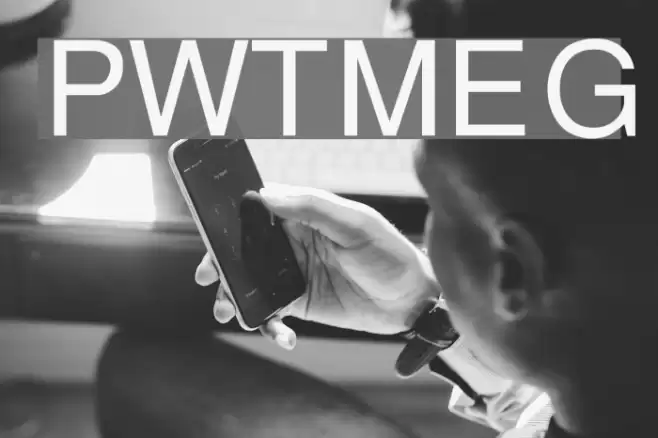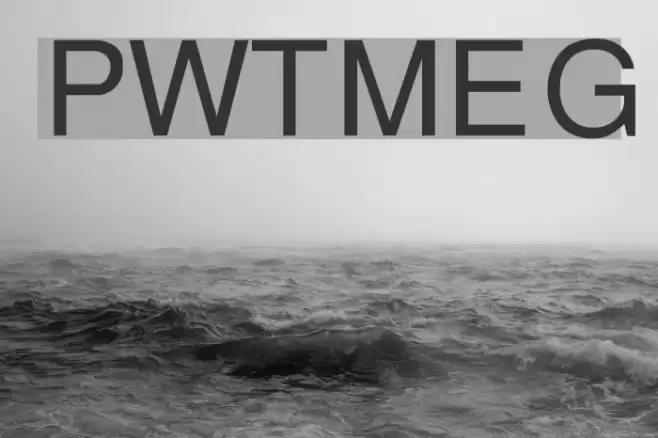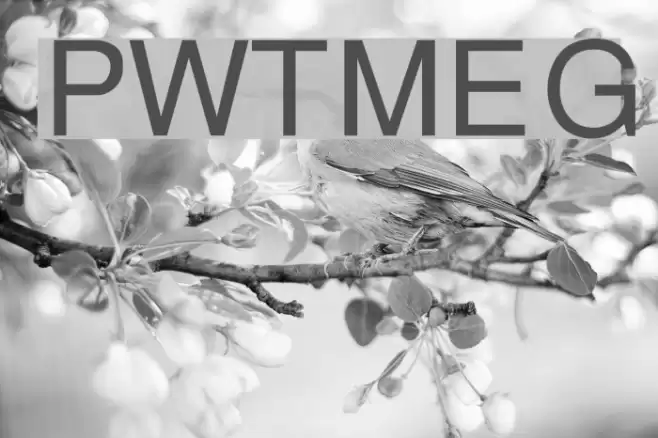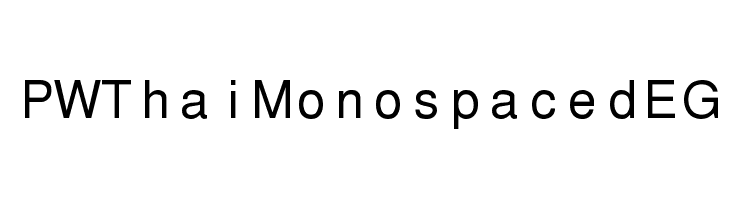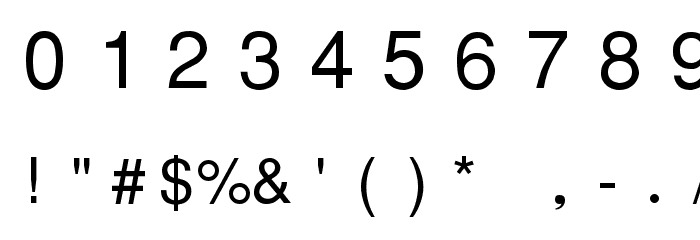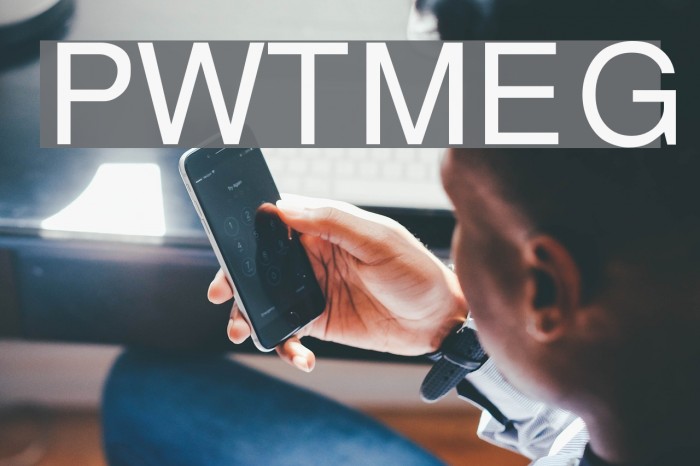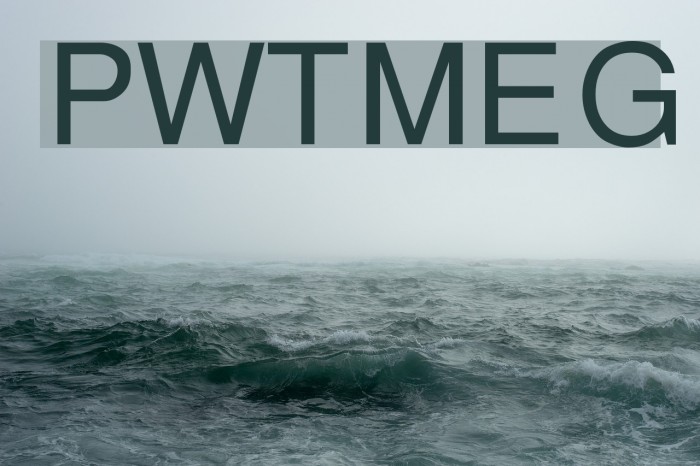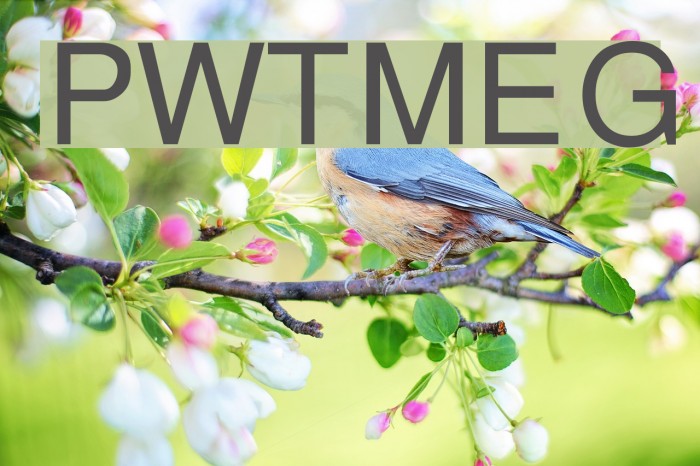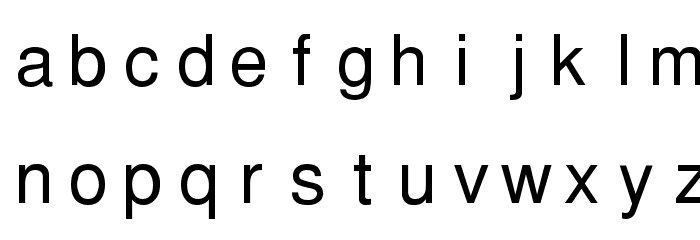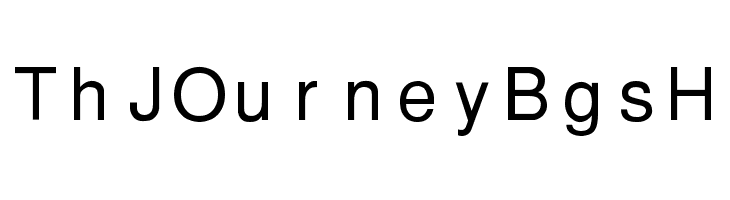
PWThaiMonospacedEG Font
PWThaiMonospacedEG Description
This font is a clean and precise monospaced typeface, characterized by its uniform character width and simple geometric shapes. The letters are evenly spaced, providing a balanced and organized appearance. The uppercase and lowercase characters maintain a consistent height, enhancing readability. The numerals and special characters are designed with clarity in mind, making them easily distinguishable. This font is ideal for coding, technical documentation, and any application where alignment and clarity are crucial. Its straightforward design ensures that it remains legible even at smaller sizes.
A clean, monospaced typeface with uniform character width and simple geometric shapes from Dingbats fonts.
- Proposed Projects: Ideal for coding, technical documentation, and data tables where alignment is key.
- Use Case: Coding, Technical documentation, Data tables